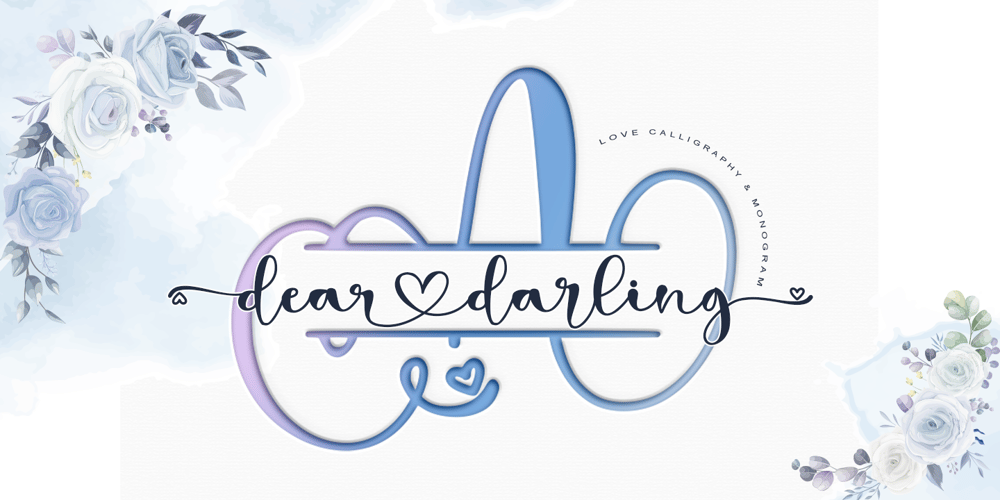
Dear Darling
Dear Darling font
Dear Darling Font Family was designed by Thomas Aradea and published by Letterara. Dear Darling contains 2 styles and family package options. dear darling is a lovely and romantic handwritten font with a monogram. It has beautiful and well-balanced characters and as a result, it matches a wide pool of designs. Add it to your most creative ideas and notice how it makes them come alive! This font is PUA encoded which means you can access all of the amazing glyphs and swashes with ease! It also features a wealth of special features including alternate glyphs and ligatures.